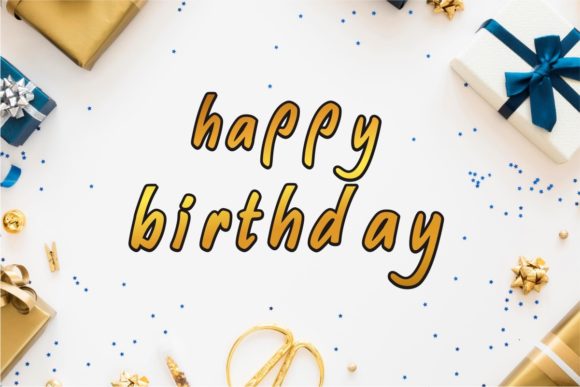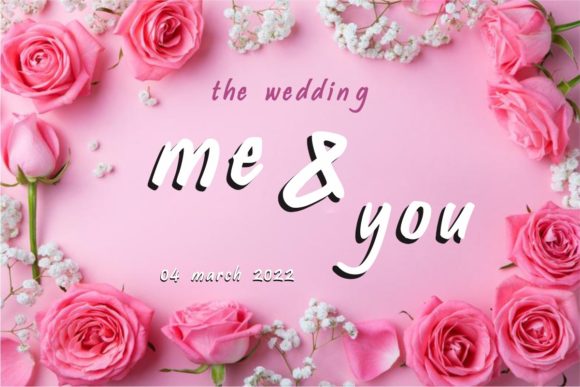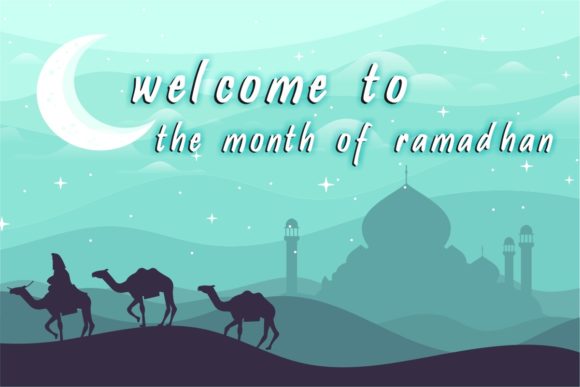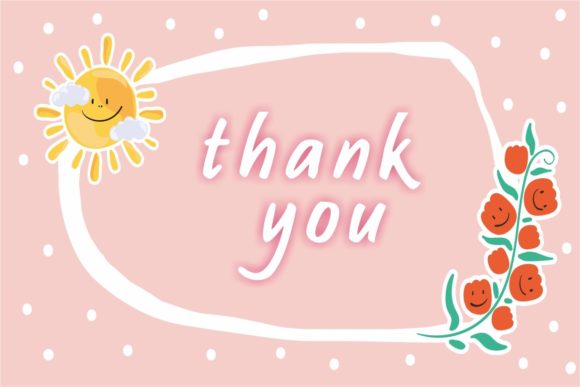
Alegrense Font: The Perfect Choice for Elegant Designs
Are you looking for a font that exudes elegance and sophistication? Look no further than Alegrense, a thin and simple script font that is sure to capture your heart. With its slightly slashed and voluptuous style, Alegrense is perfect for creating stunning wedding invitations, beautiful stationery art, engaging social media posts, and more!
What Makes Alegrense Special?
Alegrense is a unique and stylish script font that stands out from the crowd. Its thin and delicate lines give it a romantic and whimsical feel, making it perfect for designs that require a touch of elegance. The slightly slashed style adds a sense of movement and fluidity, making it ideal for creating eye-catching and engaging designs.
Perfect for Wedding Invitations and Stationery
Wedding invitations and stationery are a great way to showcase the beauty of Alegrense. The font’s elegant and sophisticated style makes it perfect for formal wedding invitations, save-the-date cards, and other stationery items. You can use Alegrense to create custom wedding invitations, place cards, and even wedding menus that will leave a lasting impression on your guests.
Engage Your Audience with Alegrense on Social Media
Social media is all about visual appeal, and Alegrense can help you create stunning social media posts that will engage your audience. Whether you’re a blogger, influencer, or business owner, Alegrense can add a touch of elegance and sophistication to your social media posts. Use it to create eye-catching graphics, quotes, and promotional materials that will stand out in a crowded feed.
Tips for Using Alegrense
Here are a few tips for using Alegrense to create stunning designs:
- Pair Alegrense with a bold font to create contrast and add visual interest to your design.
- Use Alegrense for headings and titles to add a touch of elegance and sophistication.
- Experiment with different colors and textures to add depth and dimension to your design.
- Don’t be afraid to get creative and try new things – Alegrense is a versatile font that can be used in a variety of design contexts.
Why Designers and Crafters Love Alegrense
Designers and crafters love Alegrense for its versatility and elegance. The font is easy to read and works well in a variety of design contexts, from digital designs to print materials. Alegrense is also a great choice for crafters who want to add a personal touch to their DIY projects, such as handmade cards, gift tags, and scrapbooking pages.
In conclusion, Alegrense is a beautiful and elegant script font that is perfect for designers and crafters who want to add a touch of sophistication to their designs. With its slightly slashed and voluptuous style, Alegrense is ideal for creating stunning wedding invitations, beautiful stationery art, engaging social media posts, and more. Whether you’re a seasoned designer or a crafty DIY enthusiast, Alegrense is sure to become one of your go-to fonts.